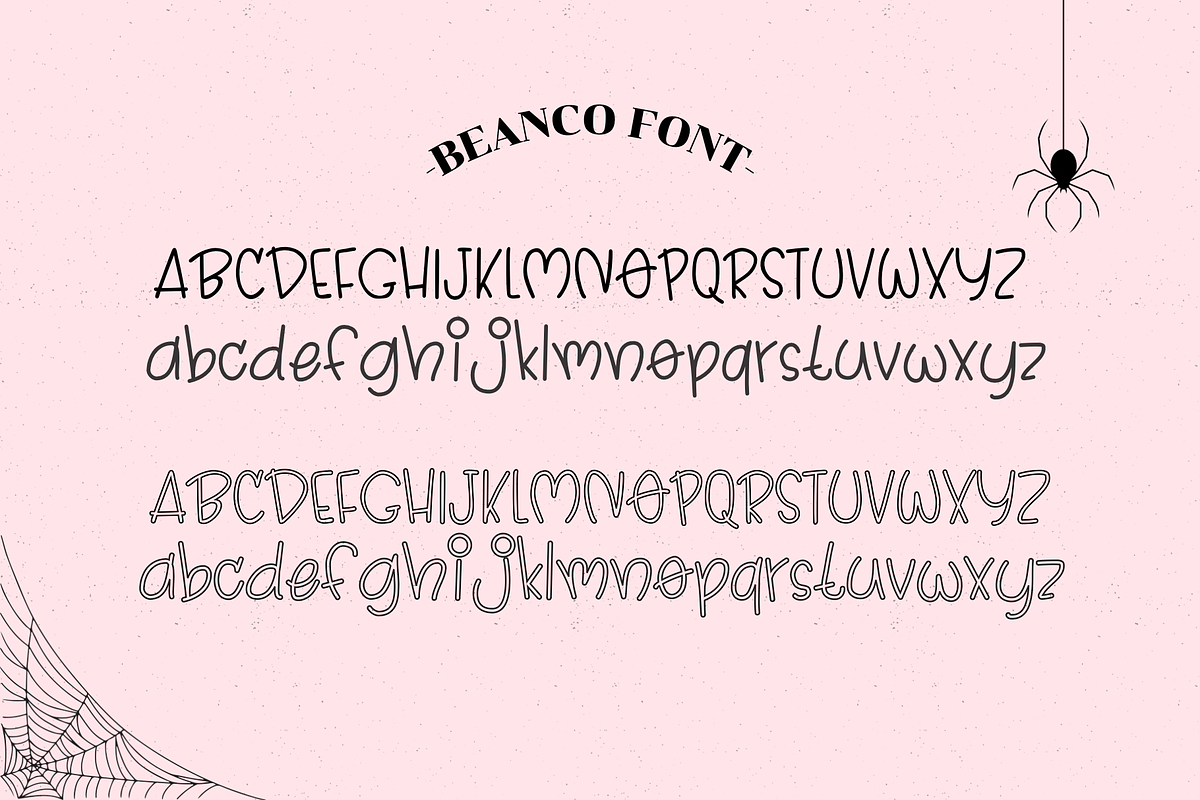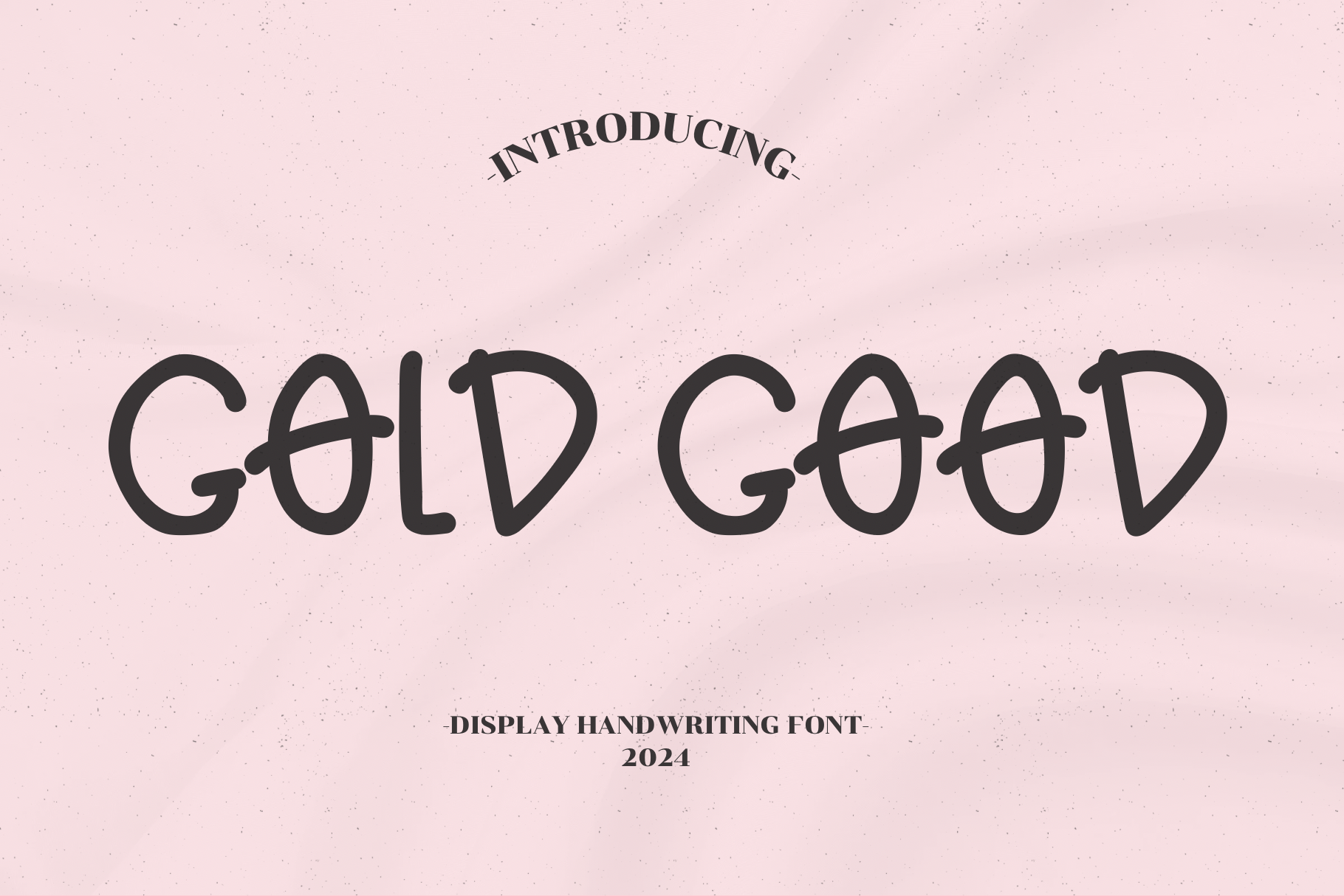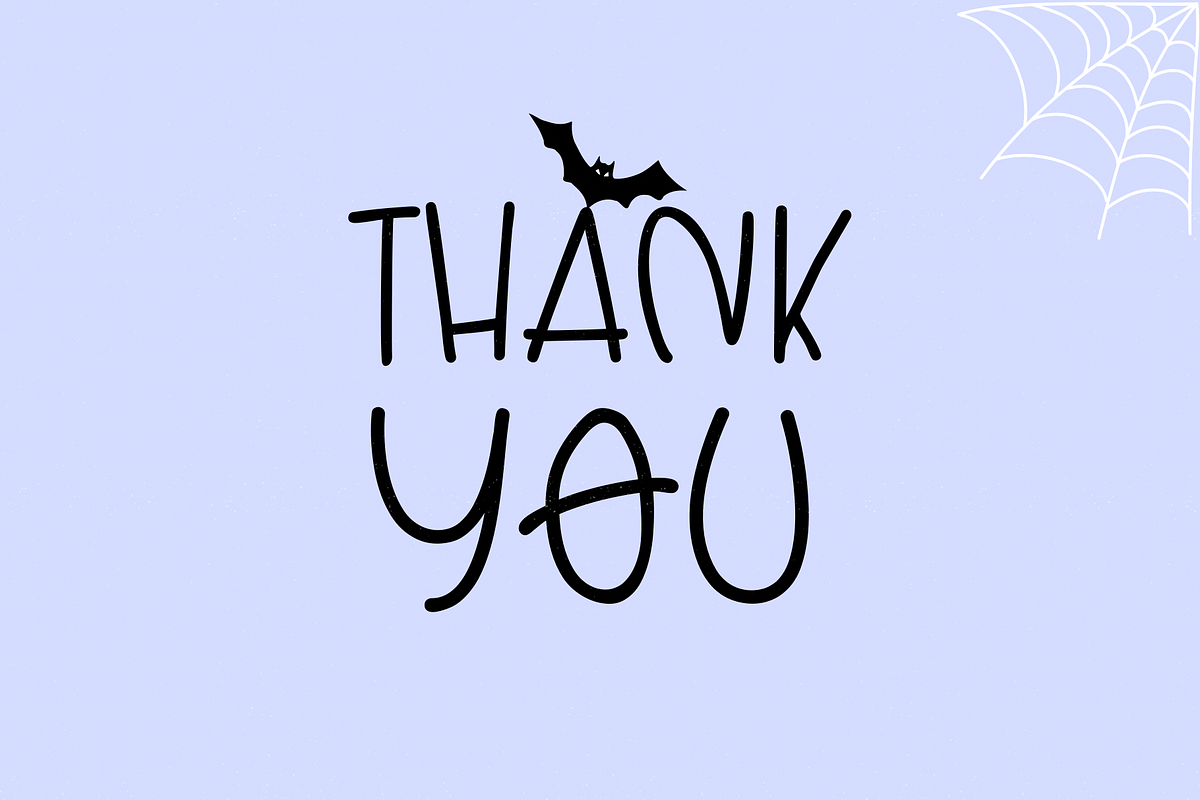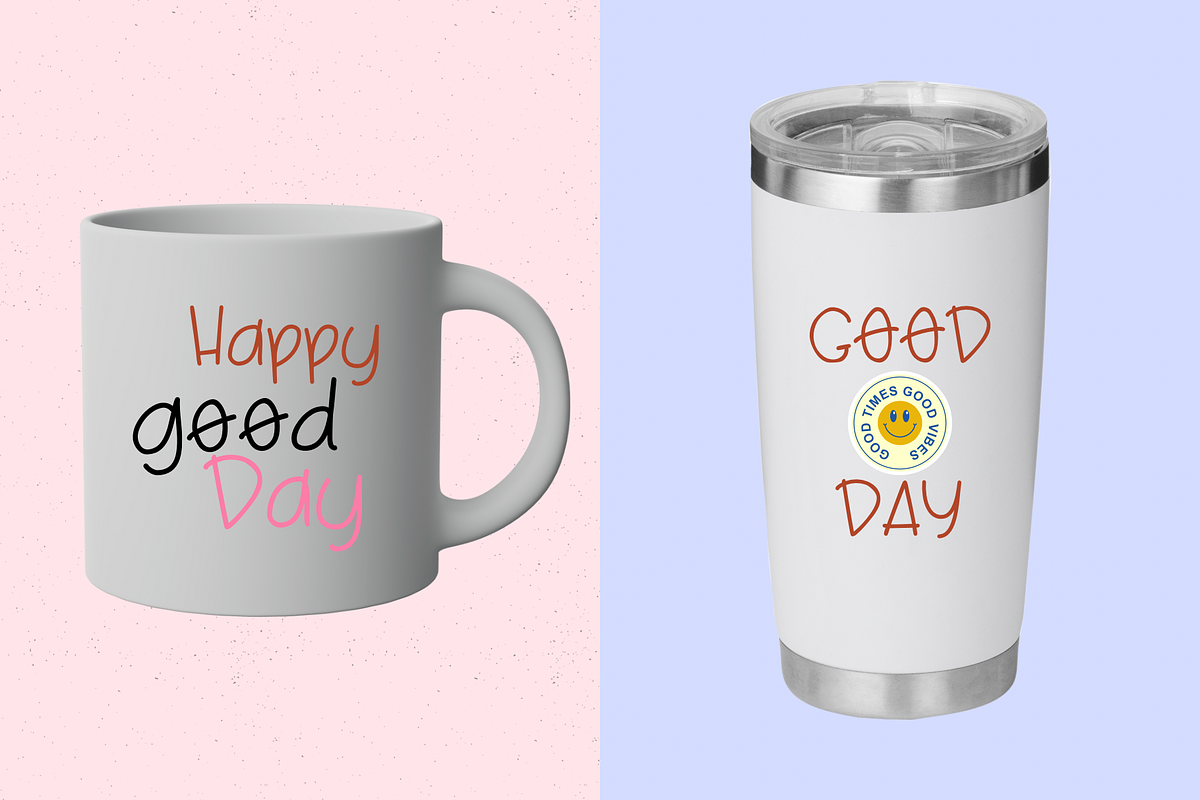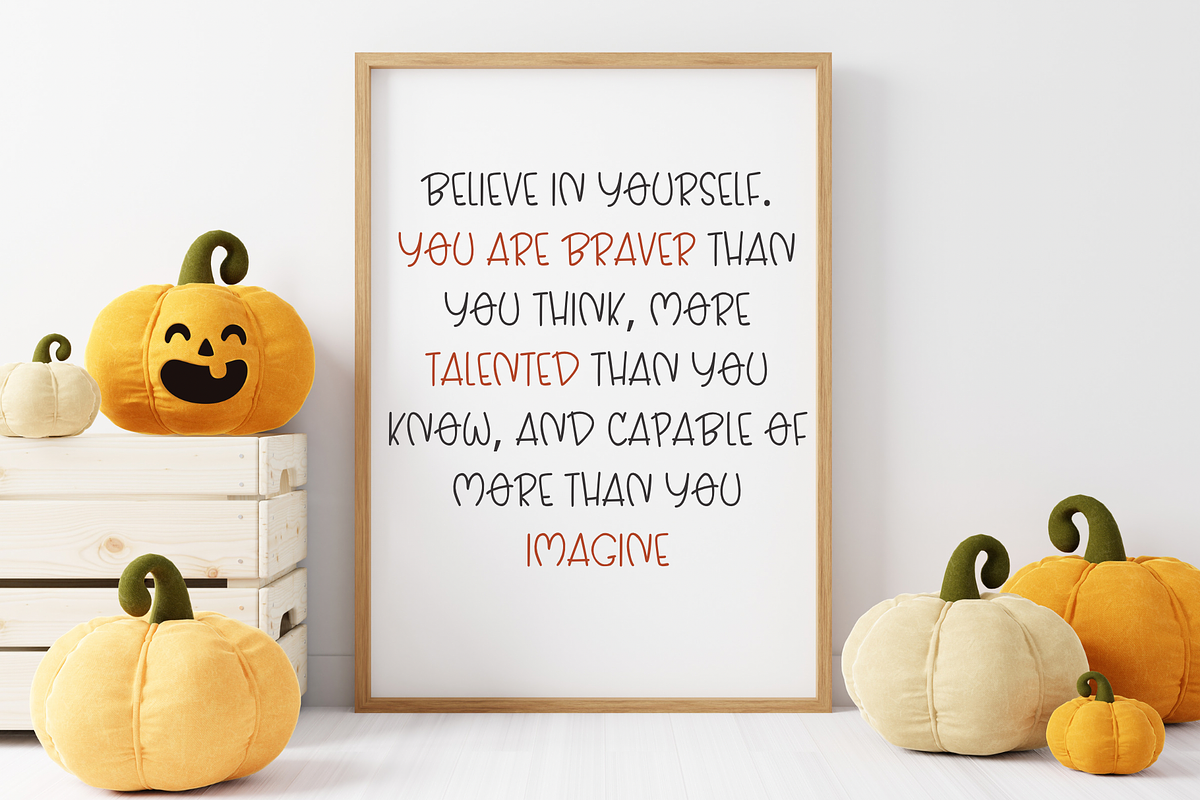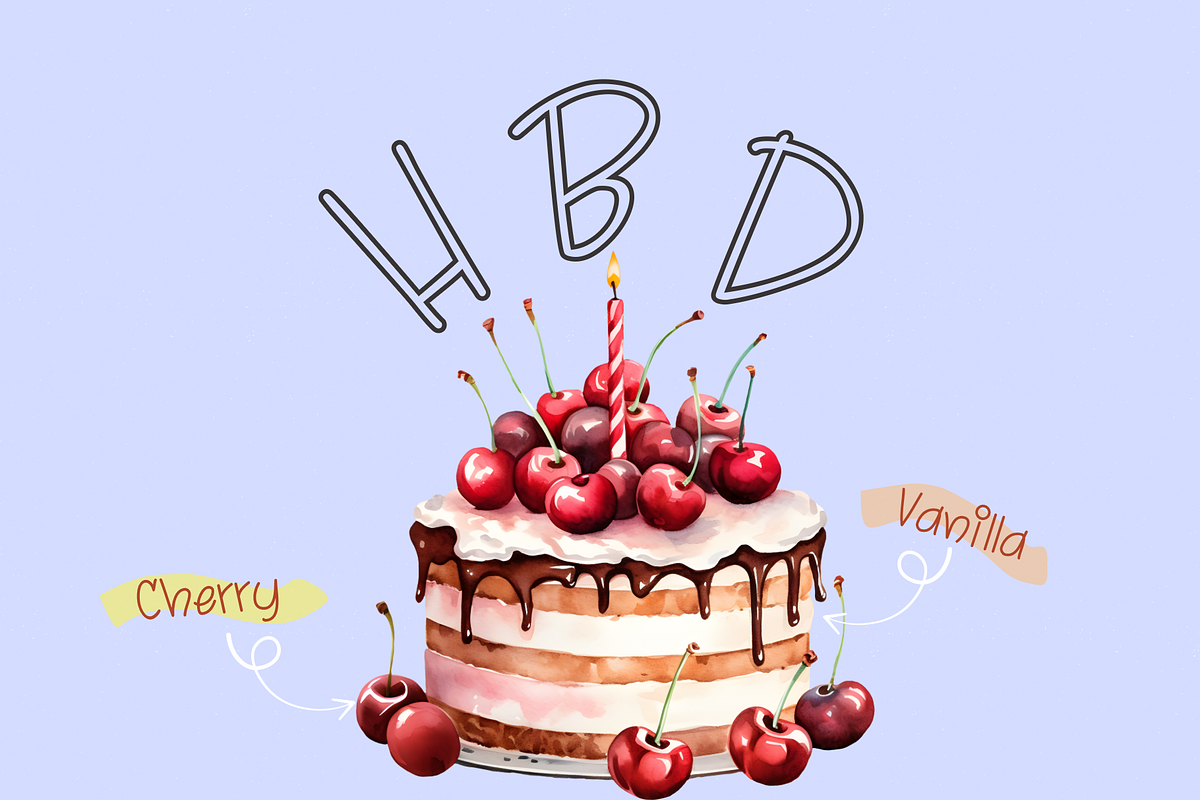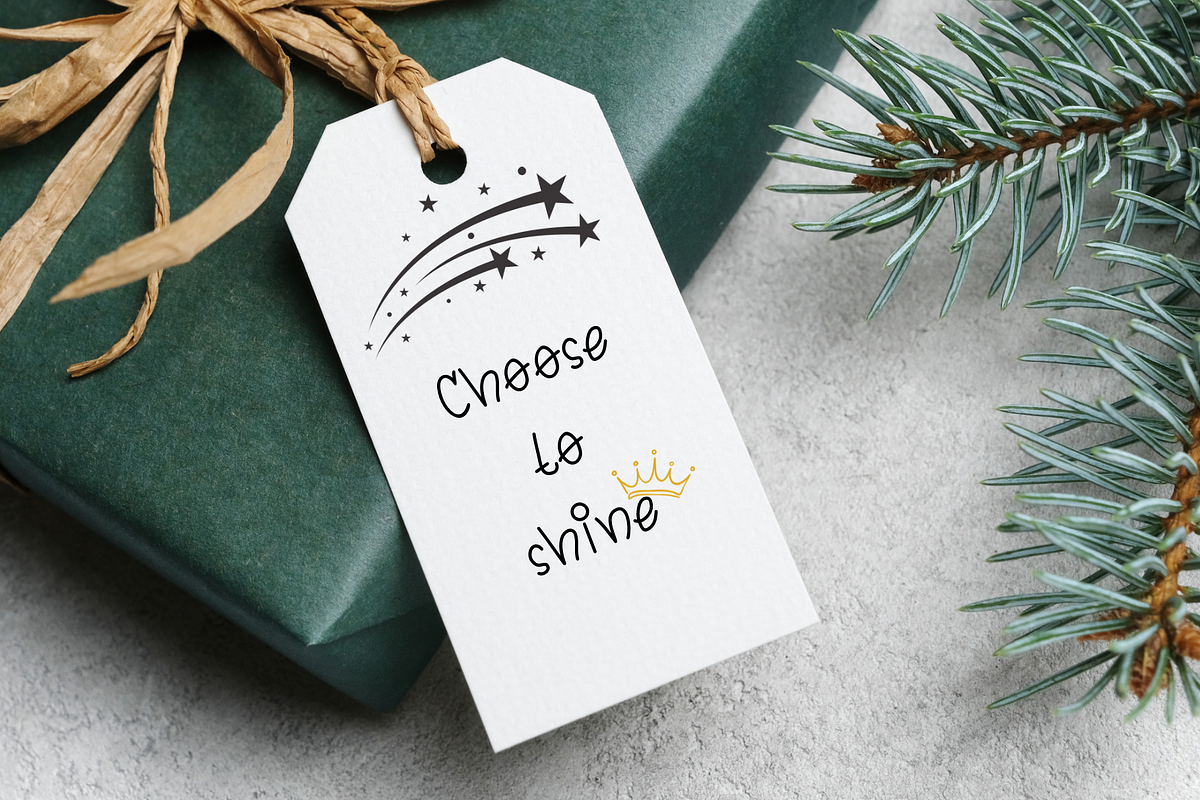
Gold good handwriting font
Gold good display handwriting font This decorative font is designed to evoke a classic and alluring feel, making your design work stand out. It can be adapted for various design projects, whether it's clothing, bags,notes,stickers ,books, and more, to showcase your unique personality. Enjoy the design process!